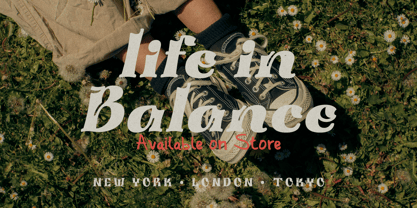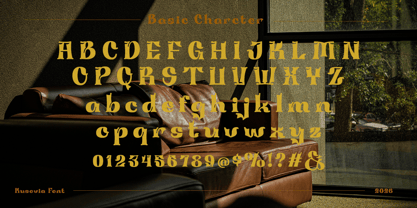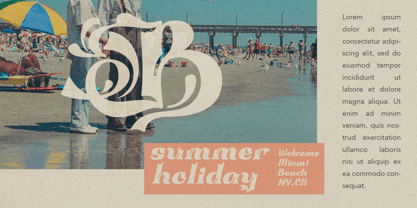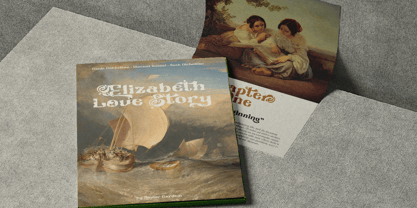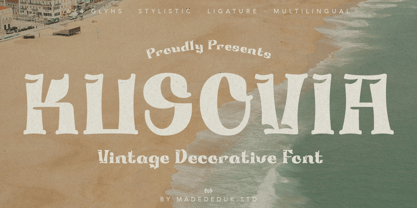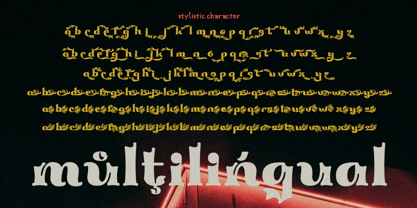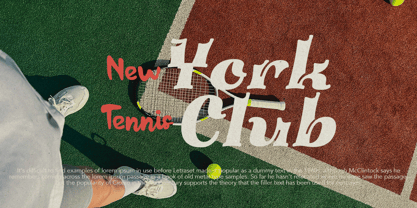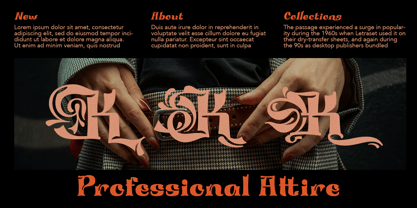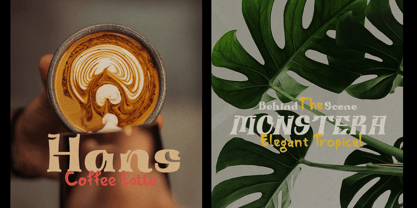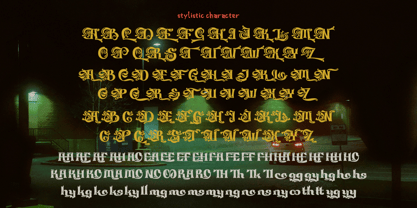
Kusovia
by madeDeduk
The Kusovia Font Family was designed by madededuk and published by madeDeduk. Kusovia contains 2 styles and family package options. More about this family
Introducing Kusovia, this font is a vintage decorative typeface featuring bold letterforms combined with elegant swashes and ornamental details. Each character is carefully designed with flowing curves and distinctive flourishes, creating a strong and eye-catching appearance. The unique shapes give the typeface a creative personality while maintaining good readability, making it suitable for designs that aim to stand out. This typeface is ideal for logos, product packaging, posters, headlines, branding, book cover and social media graphics. Its artistic details and expressive style help create a memorable visual identity and add a unique touch to any design. The balanced combination of bold strokes and ornamental elements makes the font suitable for creative projects that require both originality and visual appeal.
Designers: madededuk
Foundry: madeDeduk